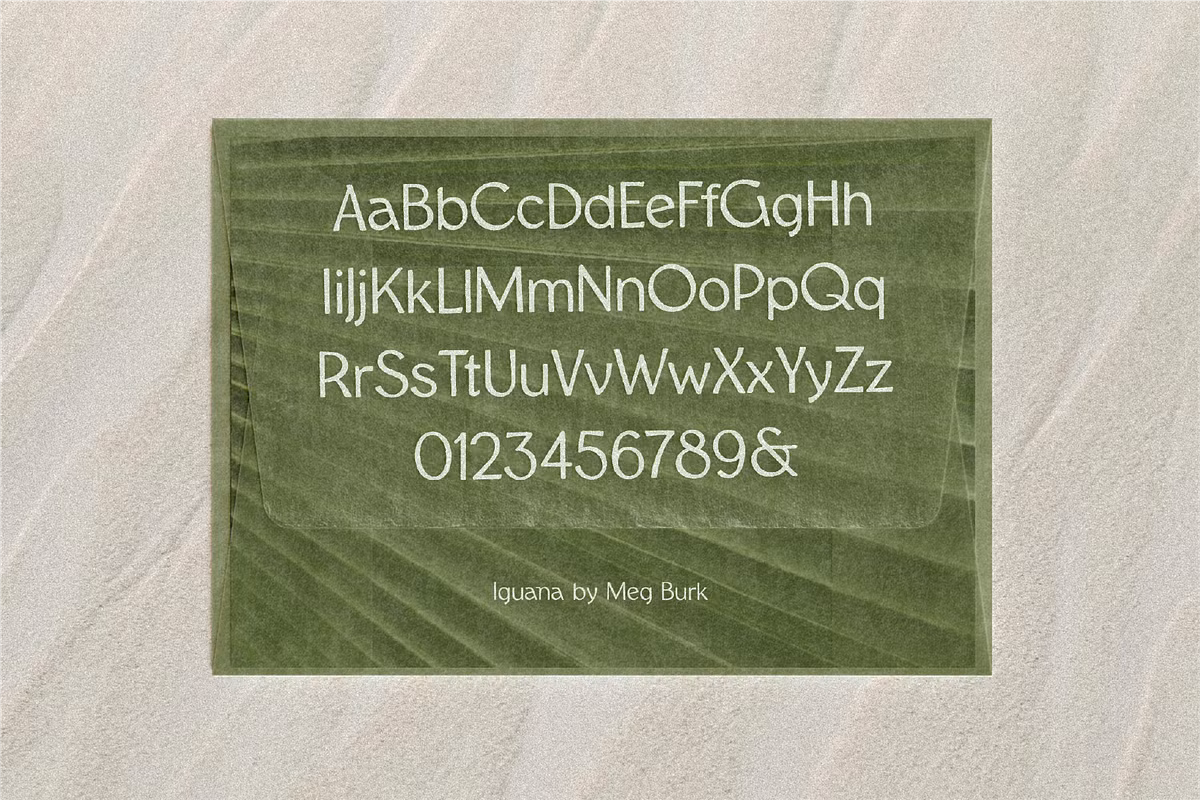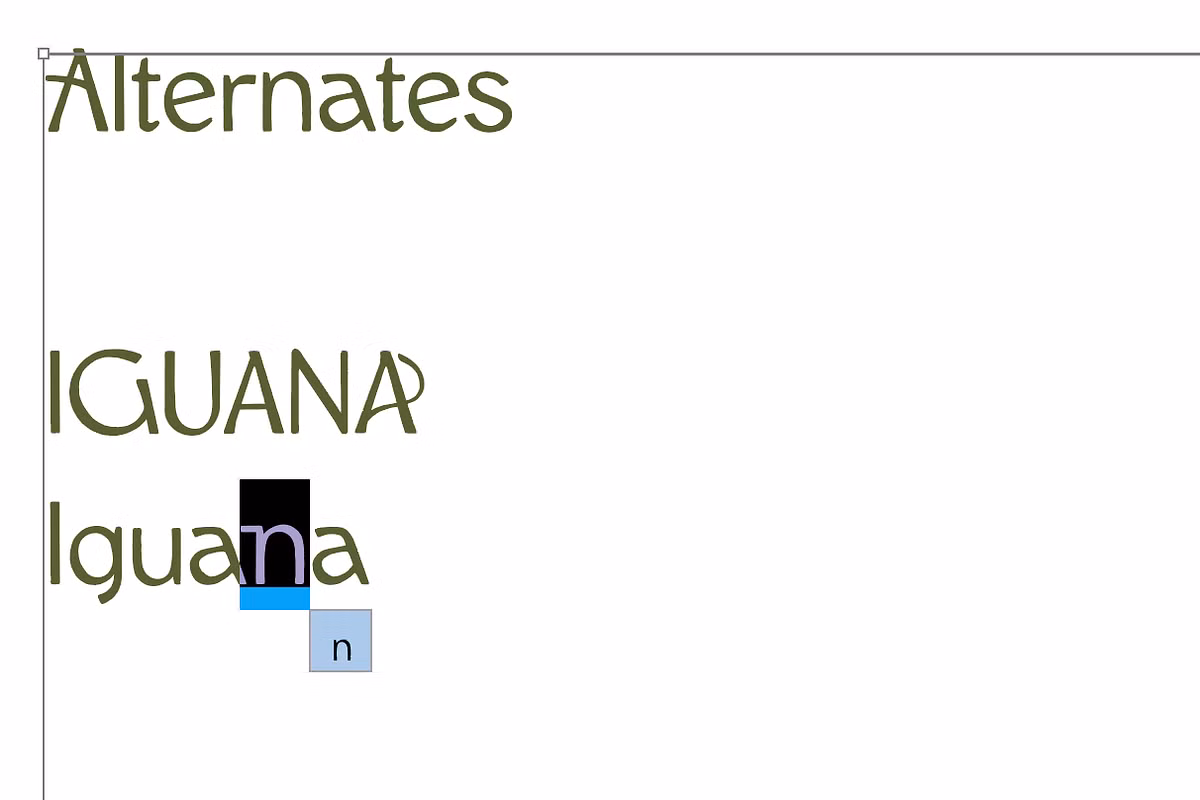
Iguana: Humanist Sans-Serif Font with Airy and Grounded Design
Iguana is a beautifully crafted humanist sans-serif font designed by Meg Burk. With its gentle sweeping curves and subtle texture, Iguana embodies an aesthetic that is both airy and grounded. This font captures a bold rhythm through its open forms, making it suitable for various design applications, especially in display type and short paragraphs. In this article, we will explore the unique design elements of Iguana, its character sets, use cases, pairing suggestions, and licensing details.
The Iguana design style brings together modern and natural elements in a beautiful way. The soft, curved lines of the letters remind us of shapes we see in nature, like seashells and the rough skin of iguana tails. This link to the natural world gives the typography a sense of peace and stability, making it perfect for brands that want to convey a feeling of freshness and self-assurance. With its unique blend of modernity and organic charm, the Iguana style is sure to make a lasting impression.
The way the letters flow together creates a sense of harmony, much like the balance found in the natural world. This balance is what makes the Iguana design style so appealing to brands that value simplicity and elegance. By incorporating elements of nature into its design, the Iguana style creates a sense of calmness and serenity, making it an excellent choice for brands that want to connect with their audience on a deeper level.
Iguana’s humanist characteristics are evident in its open forms and the clarity of its letterforms. These features not only enhance readability but also convey a contemporary feel that aligns with modern design principles. Additionally, the subtle texture adds depth to the font, ensuring that it stands out in a crowded visual landscape.
This font is really good at creating a warm and welcoming feel, which makes it perfect for lots of different uses, like hotels, restaurants, and clothing brands. It’s also very flexible, so it can fit in with different branding styles, helping you connect with the people you’re trying to reach.
Character Sets
Iguana was launched in December 2025 and includes a complete English uppercase and lowercase character set. This extensive character set enables designers to create engaging and dynamic text layouts. The font’s unique characteristics allow for expressive typography that can enhance any design project.
Use Cases
Iguana is particularly well-suited for a variety of design applications. Here are some notable use cases where Iguana can truly shine:
- Hotels and Resorts: Use Iguana for branding materials, signage, and promotional materials that require a touch of sophistication and warmth.
- Coffee and Matcha Brands: The airy feel of Iguana pairs perfectly with the fresh, organic vibe of coffee and matcha products, making it ideal for packaging and advertising.
- Fashion Labels: The modern and confident style of Iguana can elevate fashion branding, helping to convey a sense of style and elegance.
- Design-Forward Graphics: Whether for posters, flyers, or digital content, Iguana provides a fresh and confident aesthetic that can enhance any visual communication.
With its versatility and warm tone, Iguana can be paired with various other typefaces to create stunning design combinations that resonate with audiences.